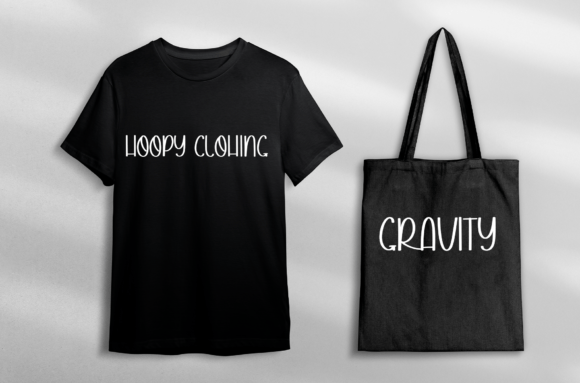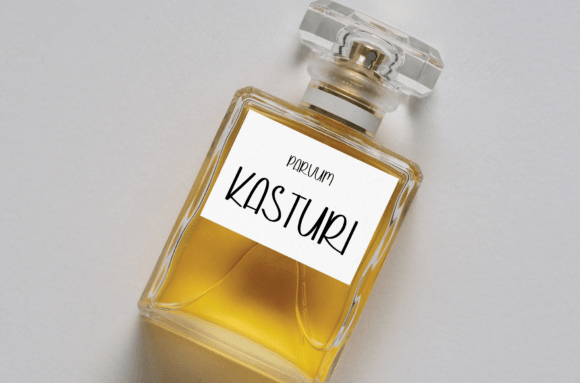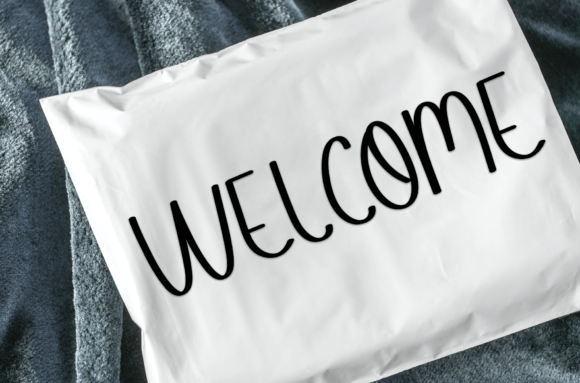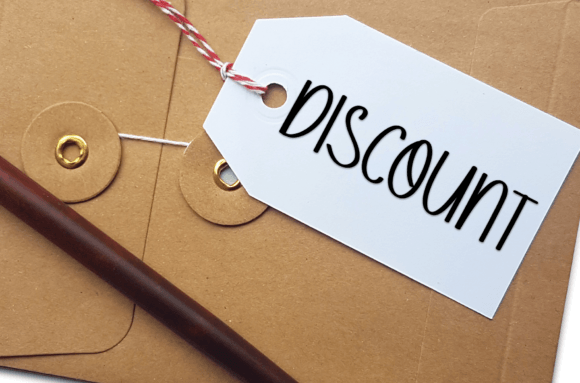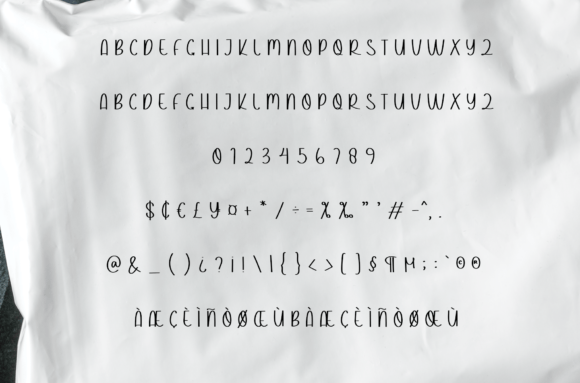
The Magical Christmas Unque Font: A Designer’s Delight
It’s the most wonderful time of the year – and I’m not just talking about the holiday season! As a designer, I’m always on the lookout for the perfect font to make my projects shine. I recall a particularly stressful design moment when I was working on a wedding invitation project, and I just couldn’t find the right font to match the client’s elegant yet playful vibe. That’s when I stumbled upon the Christmas Unque font, and it instantly became my new best friend! 🎉
So, what makes Christmas Unque so special? Let’s dive into the good stuff! 😊
- ✨ Sweet and Friendly: This font is perfect for adding a touch of warmth and personality to your designs.
- ✅ Highly Versatile: Use it for wedding invitations, greeting cards, or any project that needs a dash of whimsy.
- 💕 Handwritten Charm: The imperfections and quirks of a handwritten font make it feel more approachable and human.
Now, no font is perfect, and Christmas Unque has a few minor quirks to keep in mind:
- 🤔 Limited Multilingual Support: While it’s not extensive, the font does have some language limitations, so double-check the character set before using it for a multilingual project.
- ⚠️ Occasional Kerning Issues: As with any font, you might encounter some kerning issues, especially with certain letter combinations. Just a heads up to keep an eye on your text!
The Story Behind Christmas Unque
While the true story behind Christmas Unque remains a mystery, it’s easy to imagine that it was created by a designer who loves the magic of the holiday season. Perhaps they wanted to craft a font that would bring joy and warmth to people’s lives, one letter at a time. Whatever the inspiration, Christmas Unque has undoubtedly become a beloved font among designers and crafters alike.
| What is Christmas Unque best used for? | Christmas Unque is ideal for designs that require a sweet, friendly, and handwritten touch, such as wedding invitations, greeting cards, and other creative projects. |
| Is Christmas Unque suitable for body text? | While Christmas Unque is a beautiful font, it’s best suited for headlines, titles, and short paragraphs. Its handwritten nature makes it more suitable for display text rather than body text. |
| Does Christmas Unque have a wide range of characters? | Christmas Unque has a standard character set, but it may not have an extensive range of characters. Be sure to check the font’s character set before using it for a project that requires a lot of special characters. |